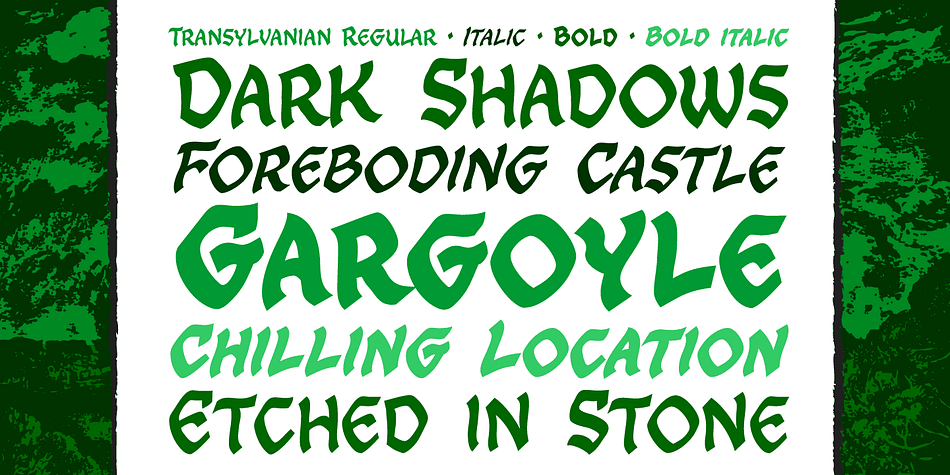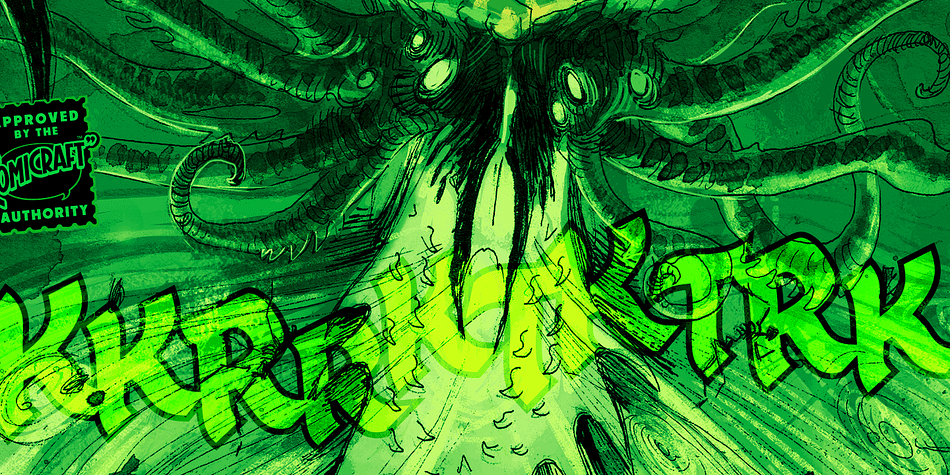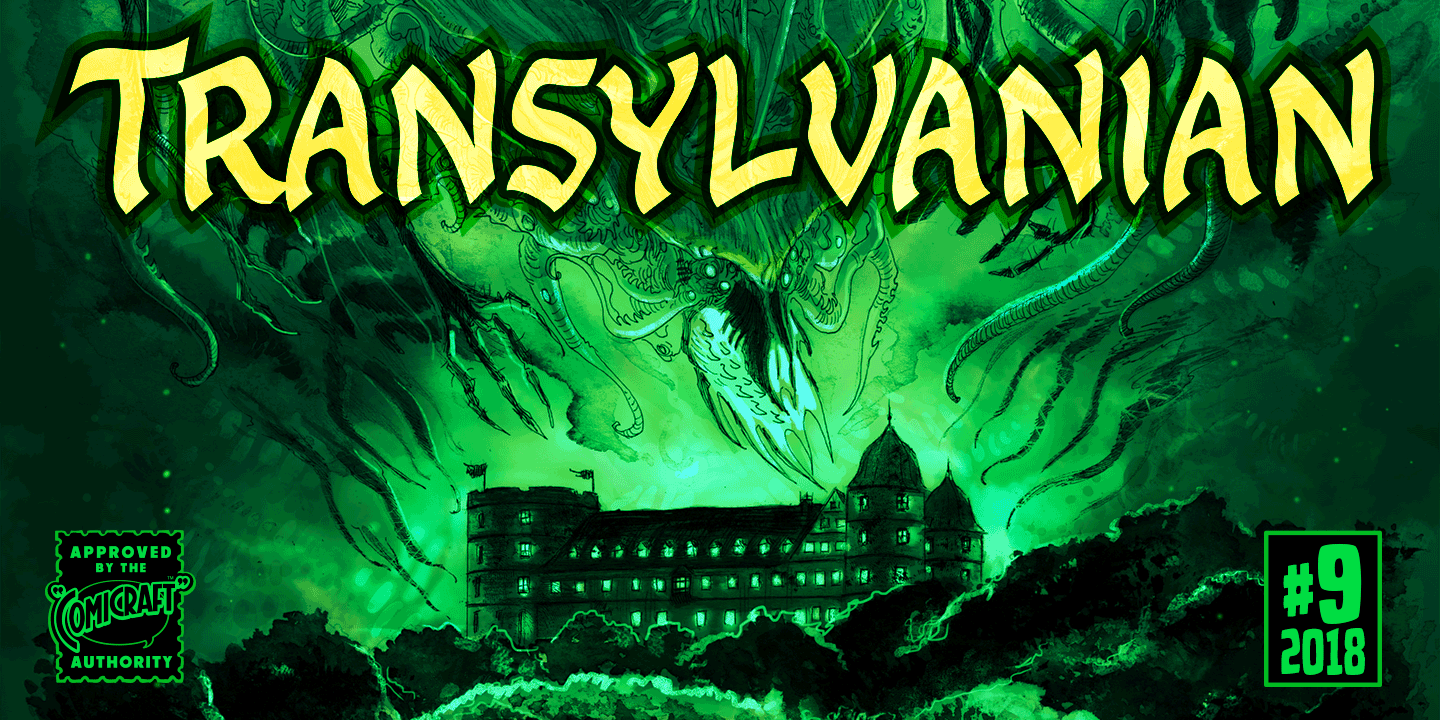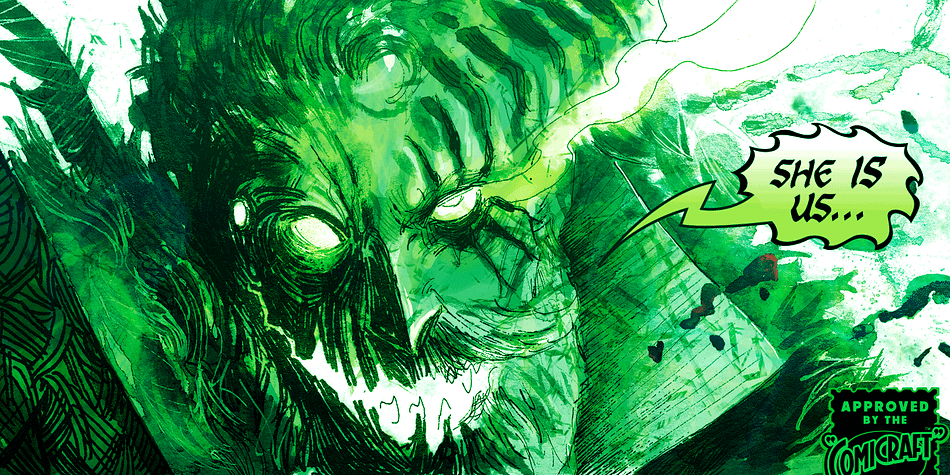
Designed by John Roshell, Transylvanian is a comic font family. This typeface has four styles and was published by Comicraft.
At the end of every road in Transylvania stands a dark, foreboding castle, seemingly clouded by impossibly dark shadows. Bat-like creatures scurry across its gargoyle-festooned towers, and slimy green patches of moss climb inexorably up its cold walls.
Blood has been spilt in the tombs of this chilling location, and there, etched in stone above the arched entranceway, is inscribed—in Comicraft’s TRANSYLVANIAN typeface—a simple legend: ABANDON ALL HOPE YE WHO ENTER HERE.
Four weights (Regular, Italic, Bold & Bold Italic) with upper and lowercase characters. Includes Western European international characters.